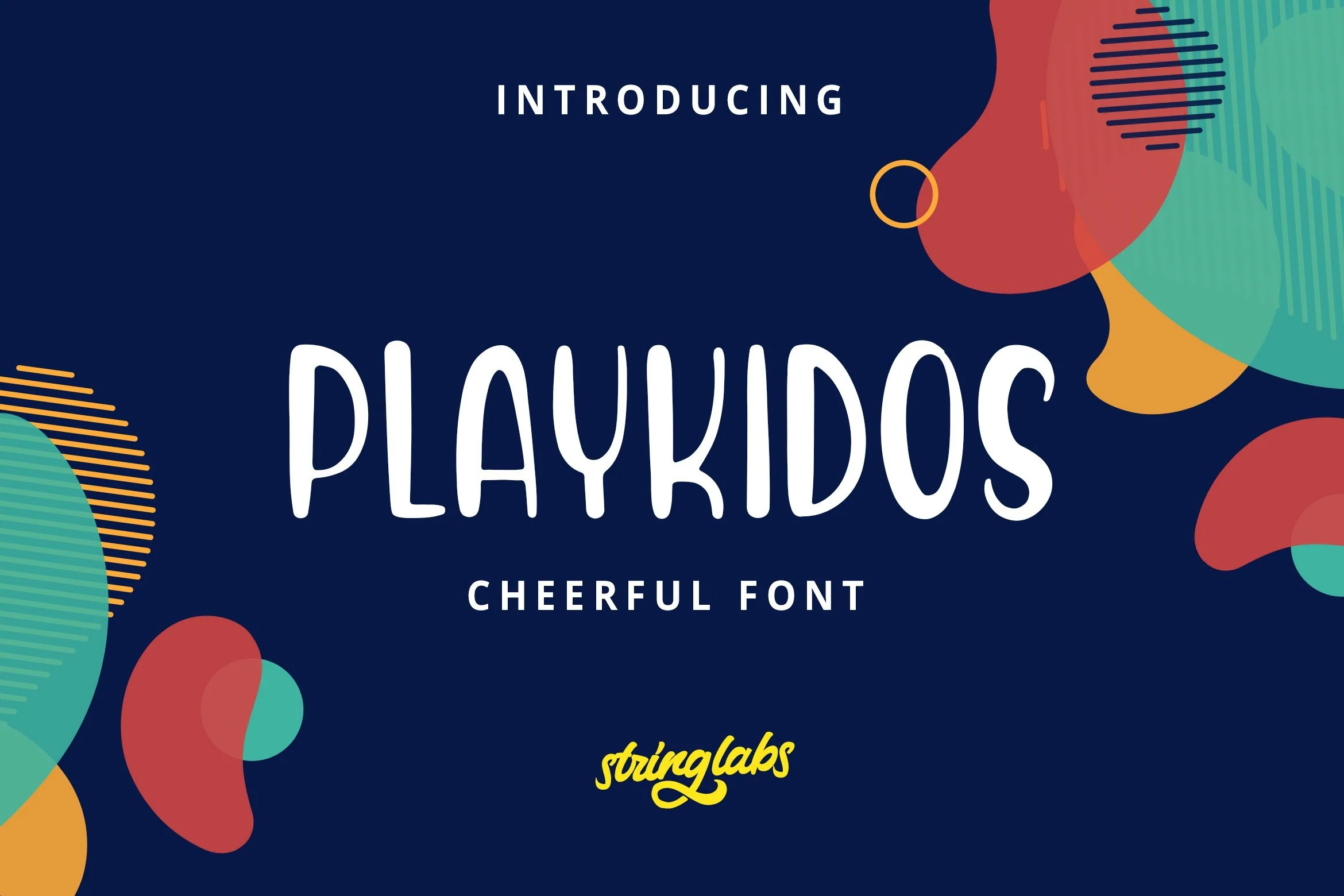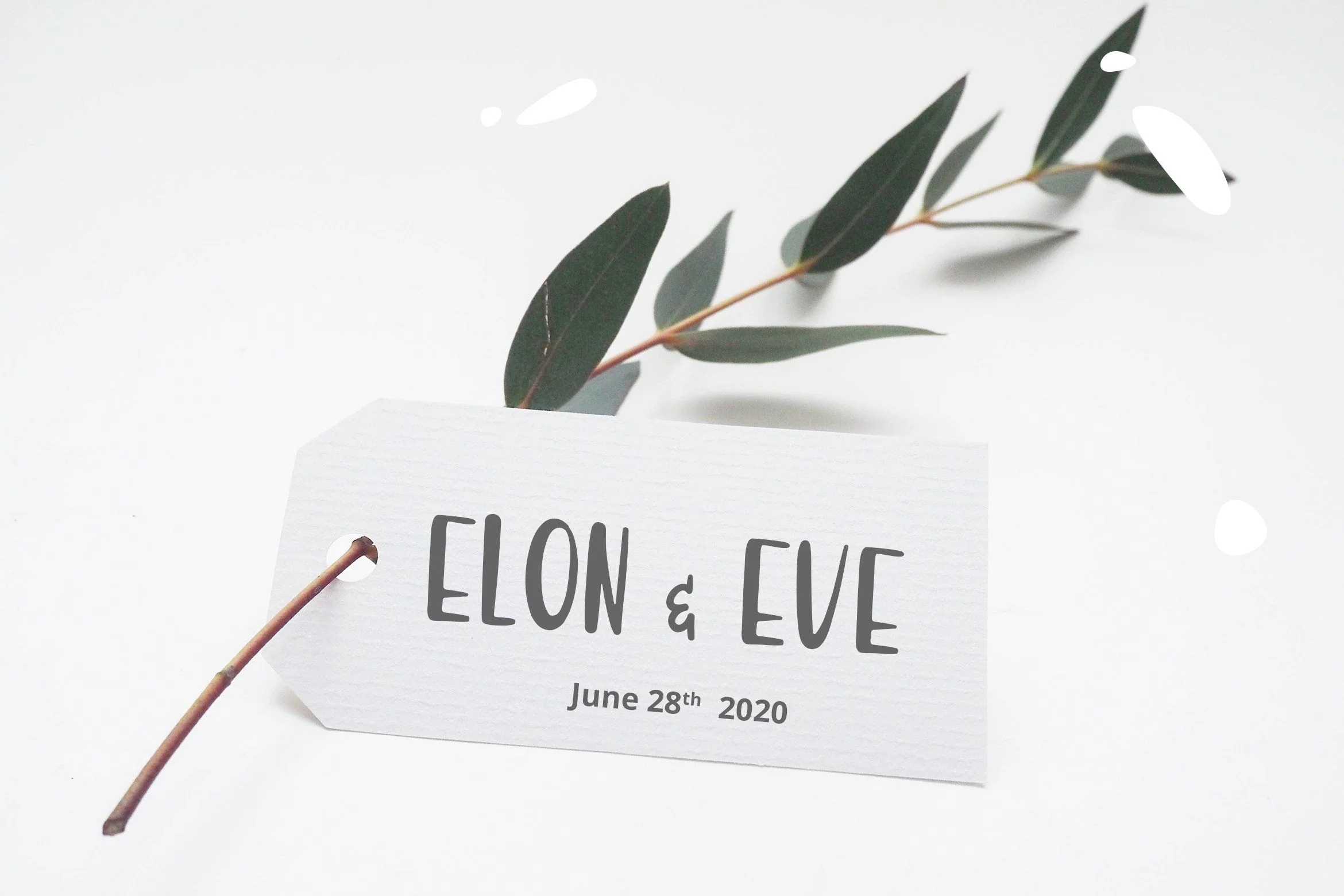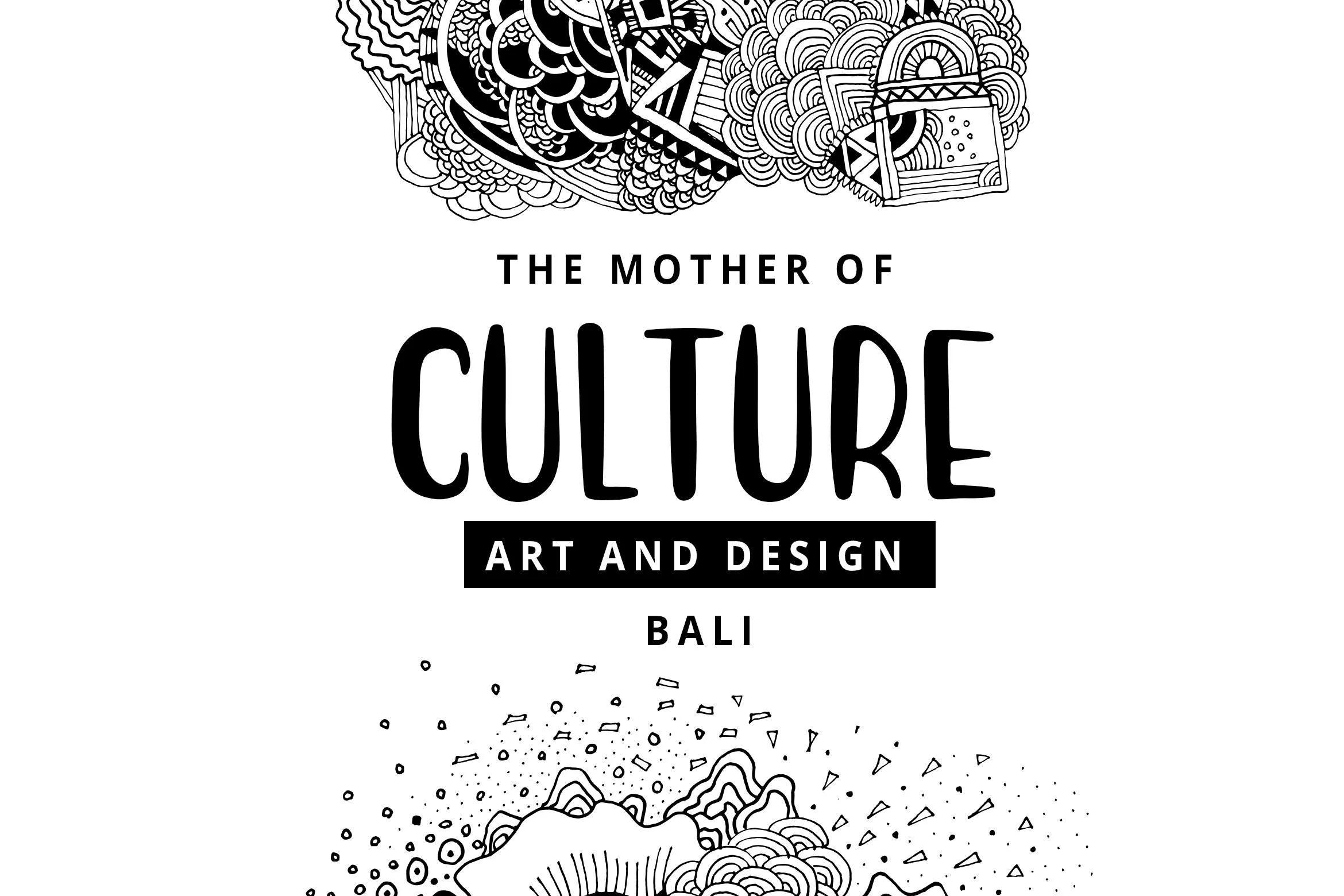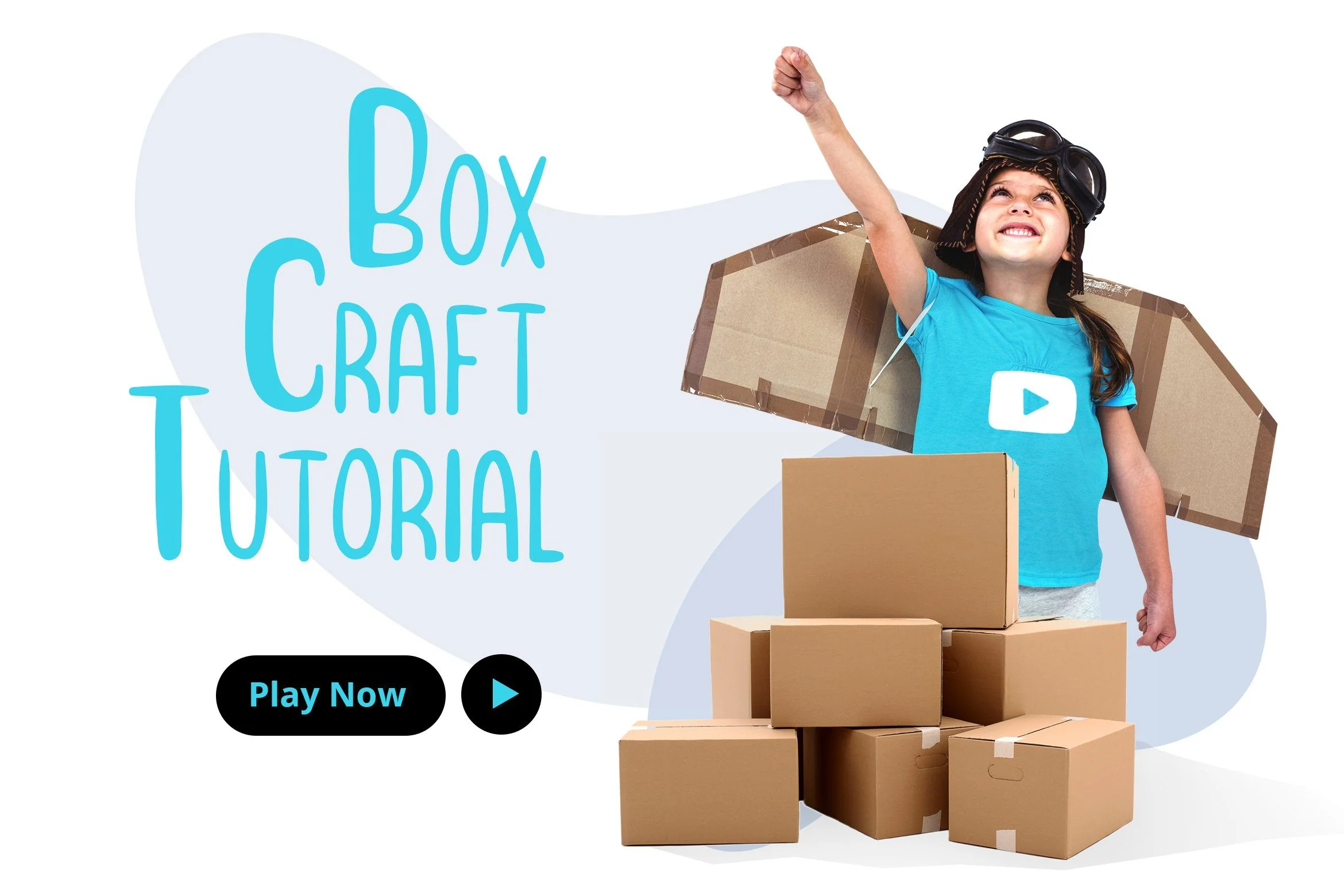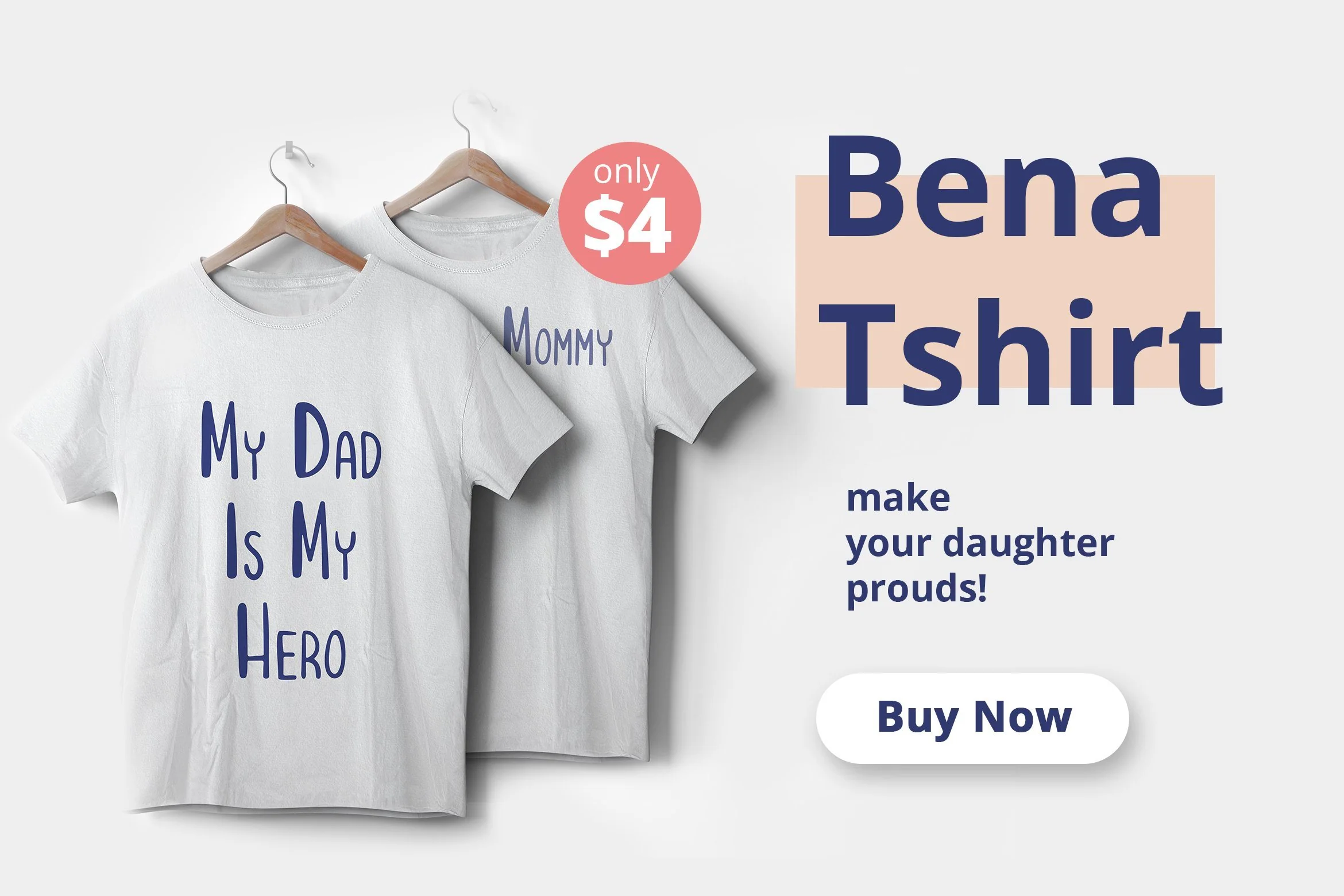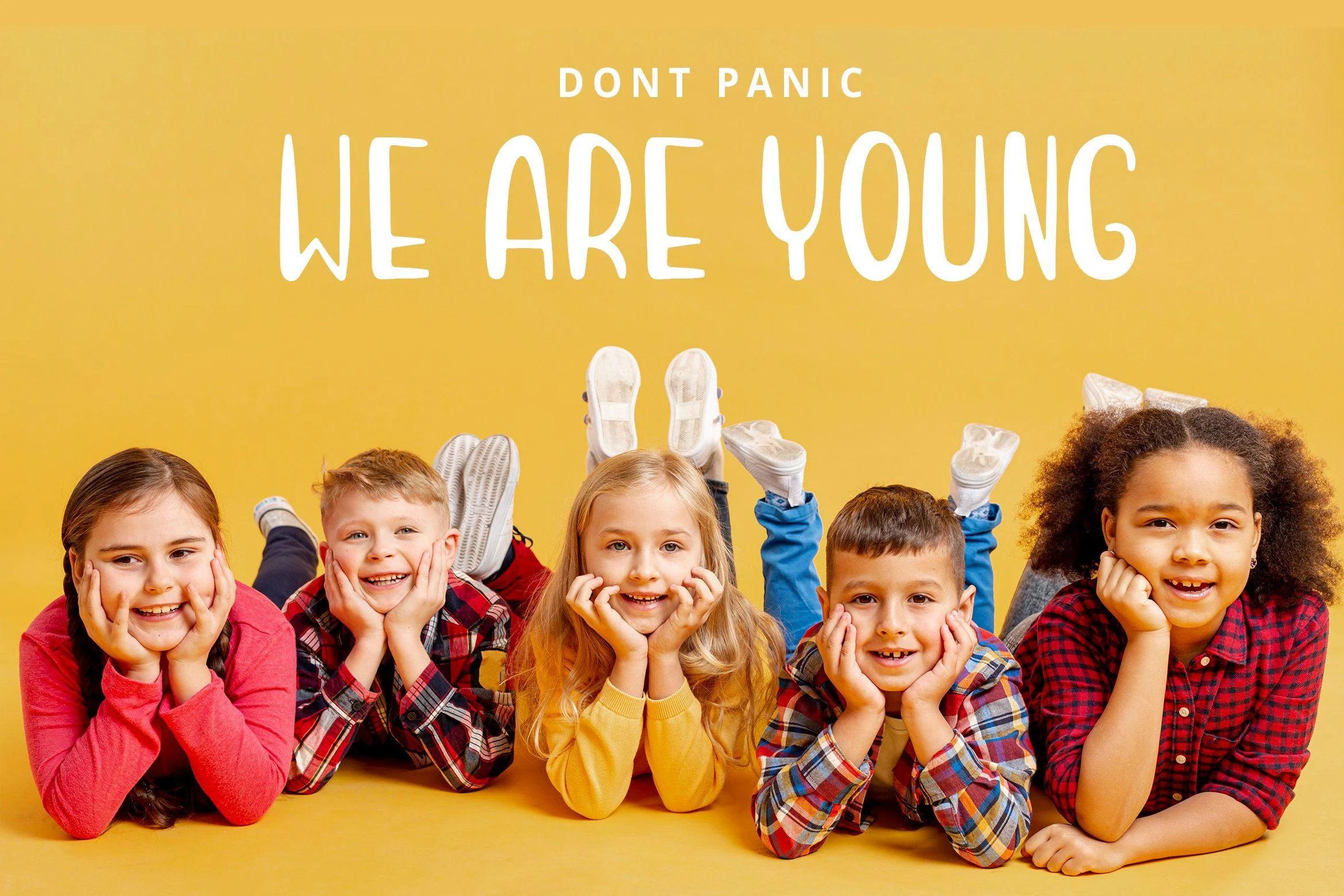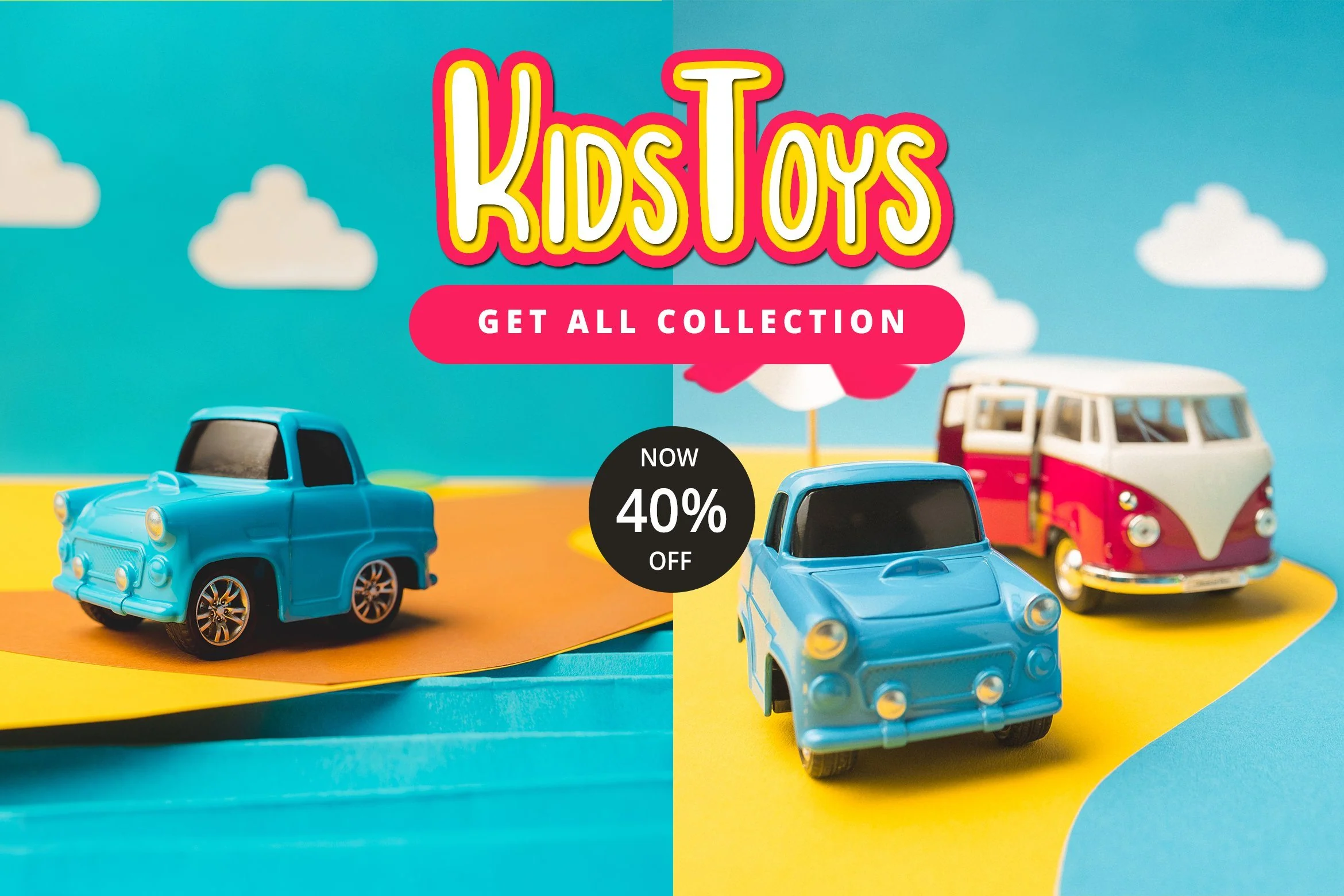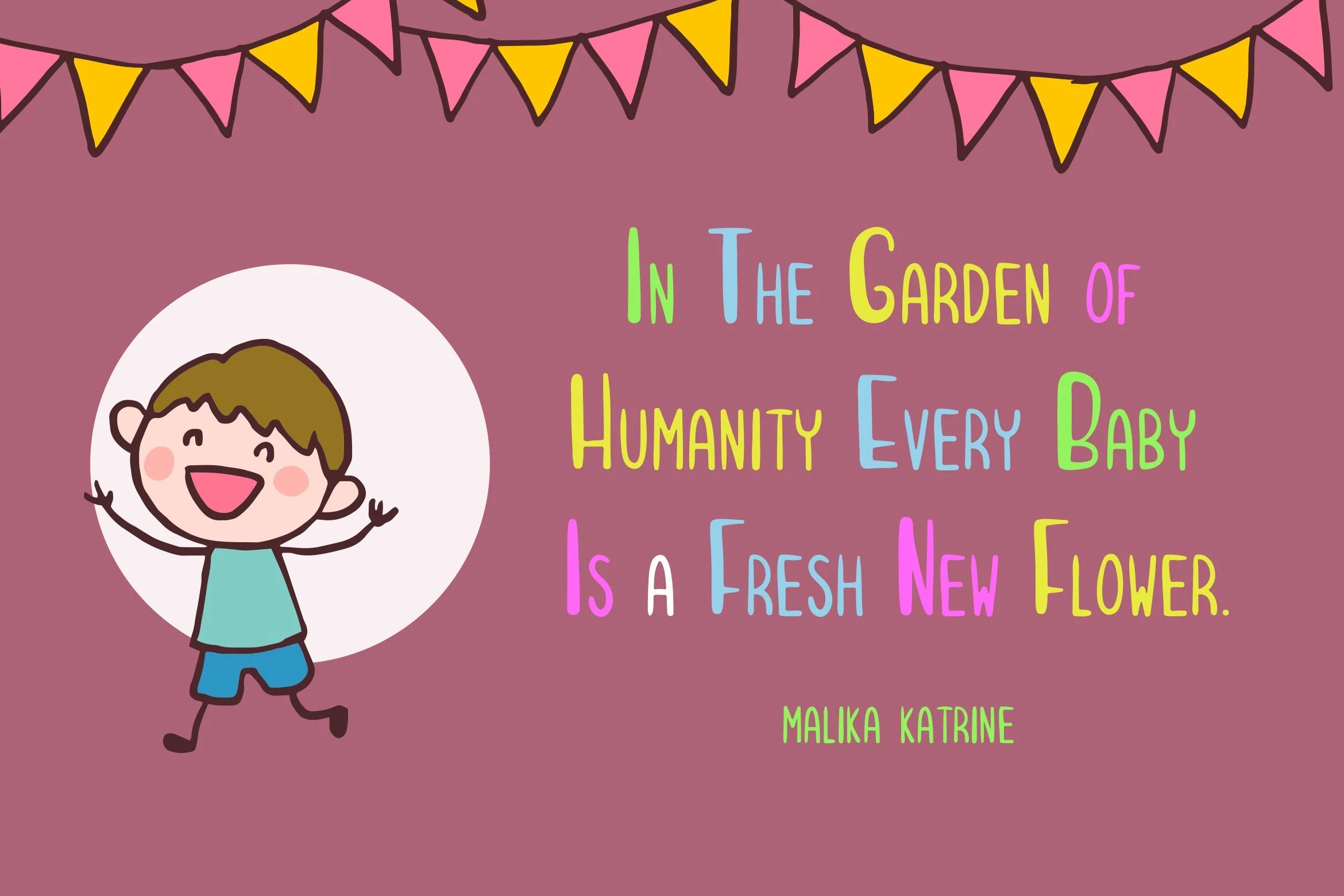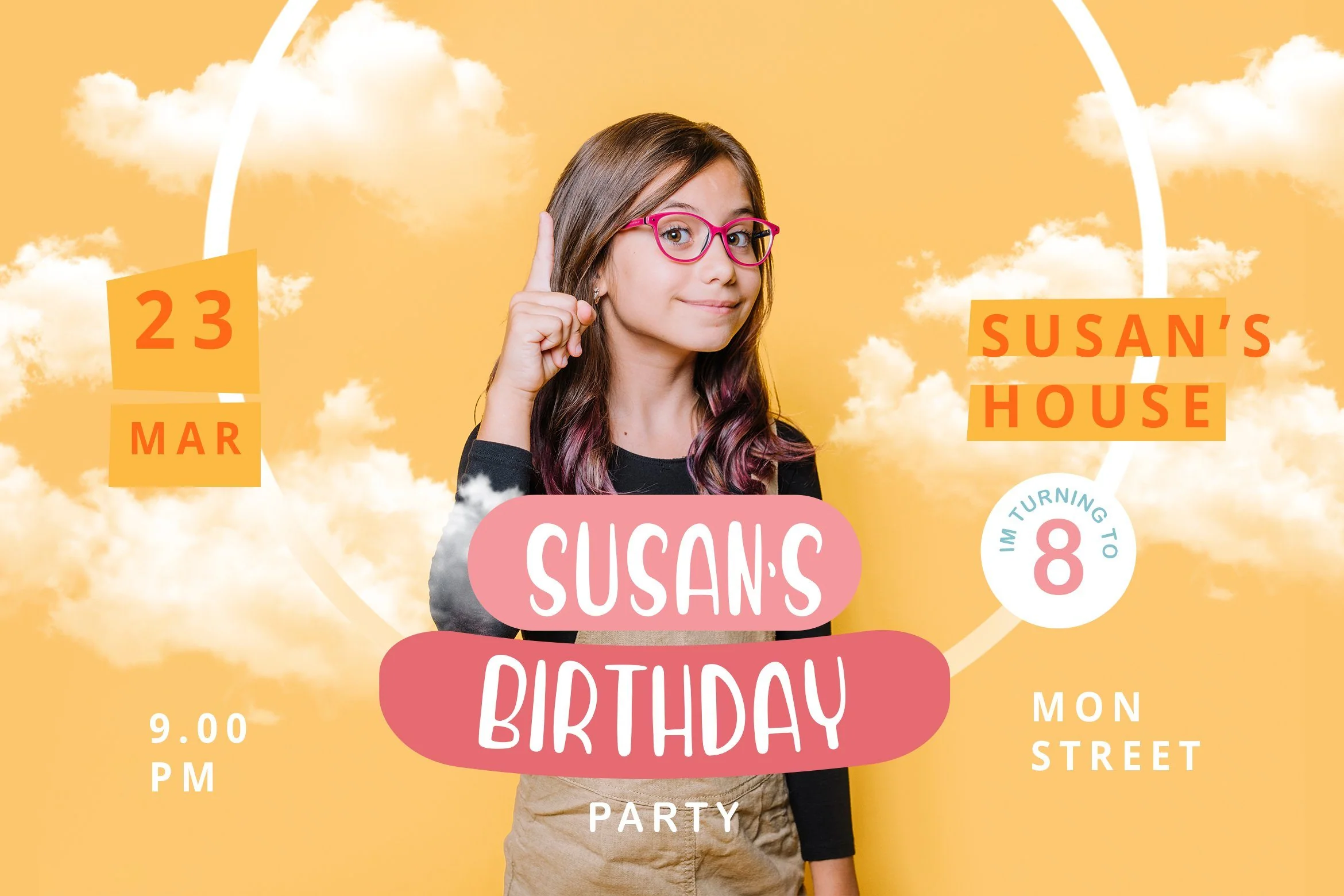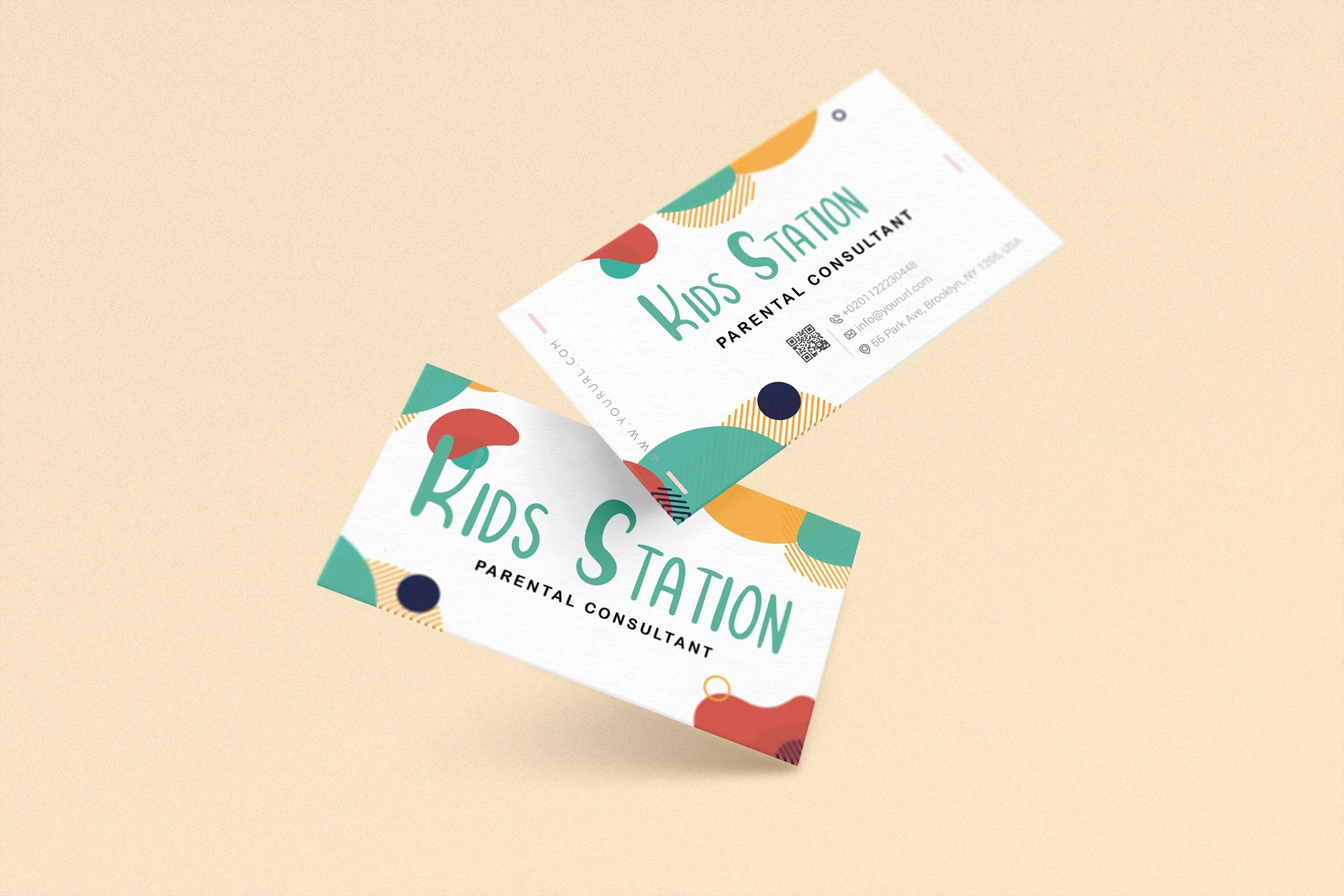
Playkidos - Playful Font
Introducing Playkidos - Playful Font
Playkidos is a playful font that specially crafted for children, Boys, Kindergarten, Birthday, Kid, Cartoon, and Comic purposes.
The Playkidos cheerfull font contains Modern, Elegant, Creative, Professional and Unique Concept.